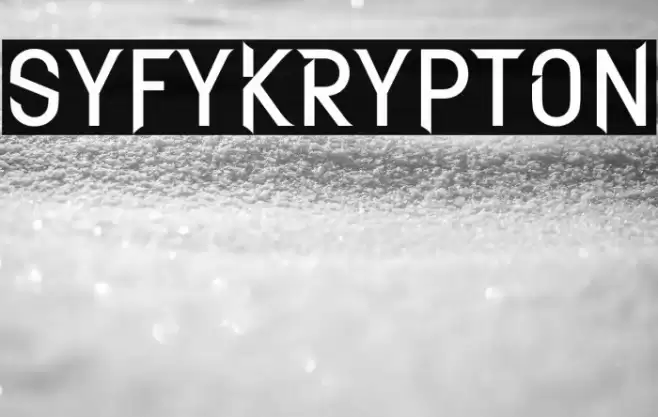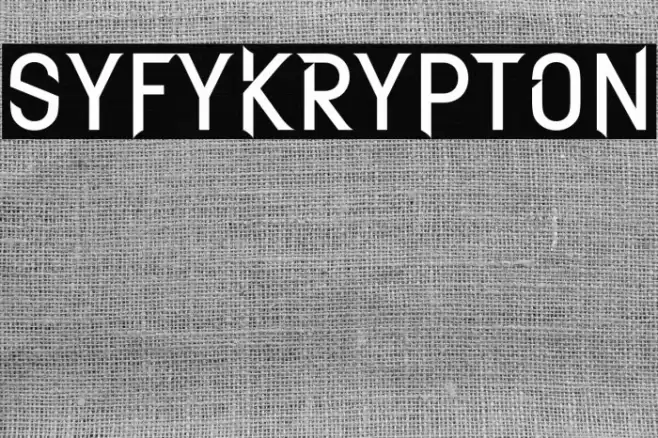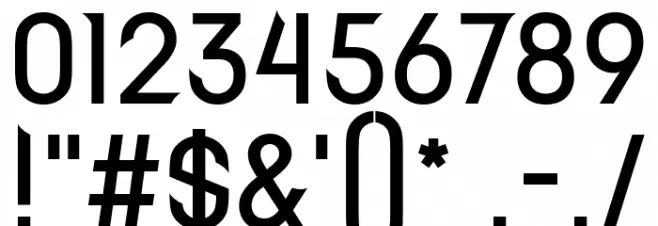
SYFYKrypton Font
SYFYKrypton Description
This font features a modern, geometric design with sharp angles and clean lines, giving it a futuristic and dynamic appearance. The uppercase letters are bold and striking, with a consistent height that enhances readability. The lowercase letters maintain the same geometric style, providing a cohesive look across different text sizes. The numerals are distinct and easy to read, with a uniform width that complements the overall design. Special characters are crafted with the same attention to detail, ensuring they integrate seamlessly with the alphabetic characters. This font's unique style makes it suitable for projects that require a contemporary and edgy aesthetic.
A modern, geometric font with sharp angles and a futuristic style from Uncategorized fonts.
- Proposed Projects: Ideal for sci-fi themed designs, branding, posters, and digital media.